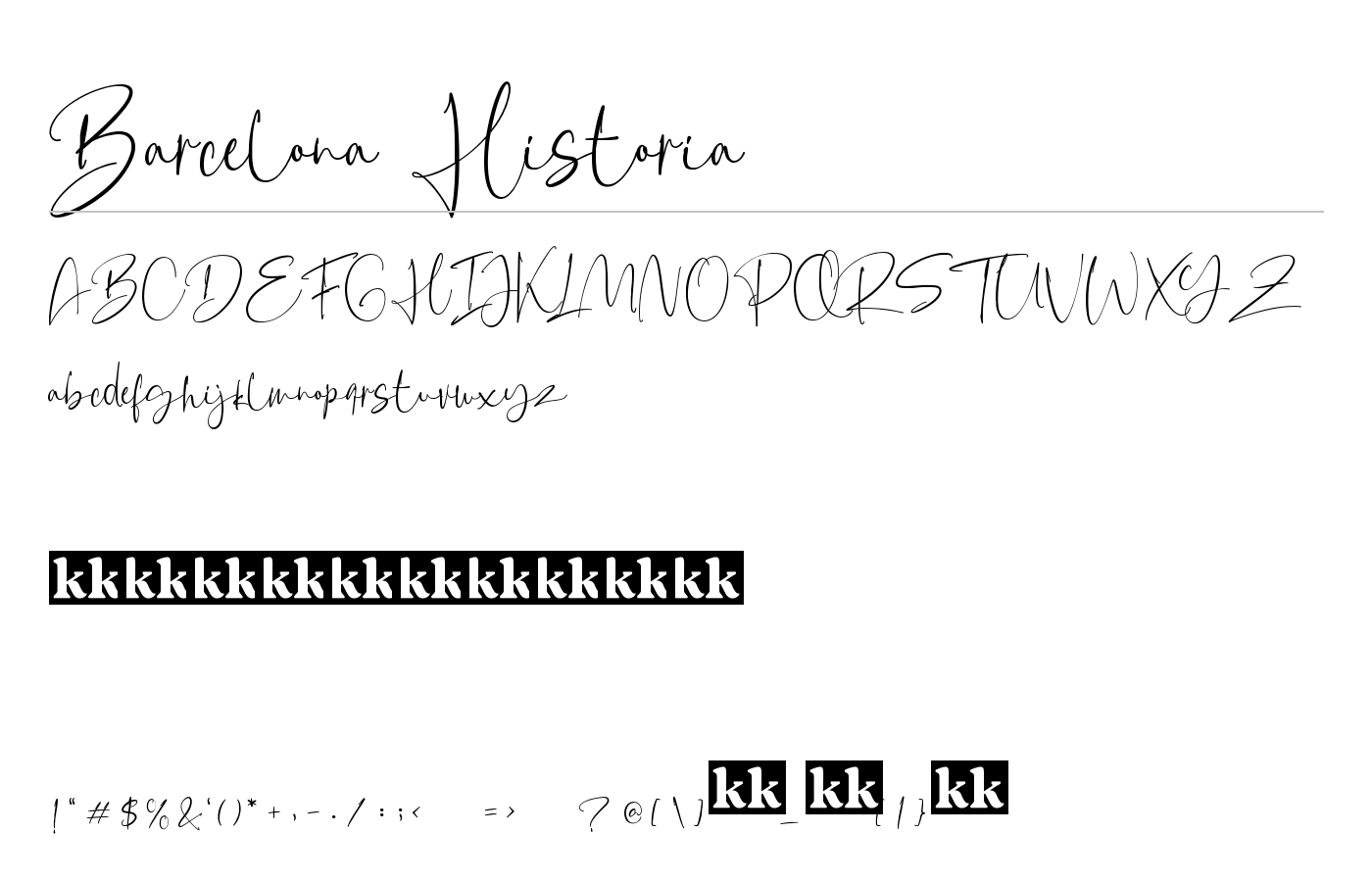
Barcelona Historia is an elegant, handwritten script font with a delicate, flowing style that feels personal and artistic. Its thin strokes and tall, airy letterforms create a sophisticated yet approachable look, ideal for invitations, branding, and projects that want to convey a sense of beauty and refinement. This font works beautifully in creative and fashion contexts where a modern, graceful touch is desired.
Barcelona Historia Font
| Designer | M Arif Dwi Prasetyo & Eko Nurcahyo |